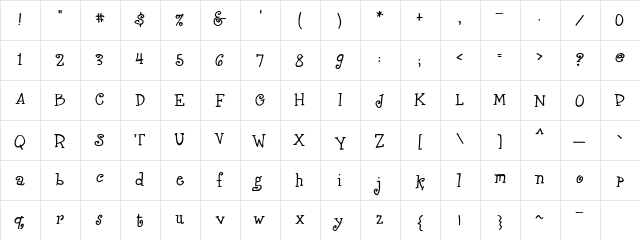
TXT Jubulation Regular
Design Context for TXT Jubulation Typeface
TXT Jubulation is a composed and adaptable typeface that performs quietly and consistently across a wide range of design contexts.